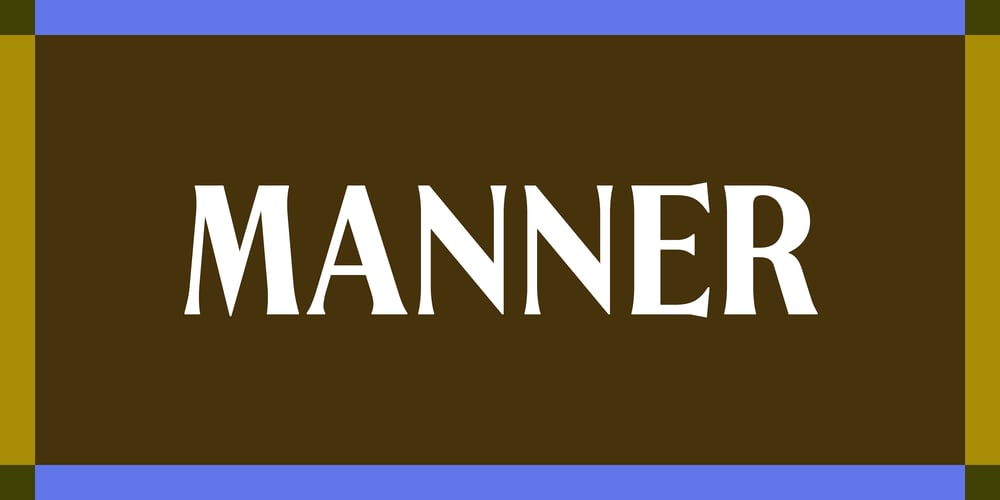
Manner
Manner font
Manner Font Family was designed by Colophon Foundry and published by Colophon Foundry. Manner contains 5 styles and family package options. Although Manner’s roots are firmly within Theodore Low De Vinne’s eponymic type design of the 19th Century, its sensibilities are re-cut and pushed through a contemporary lens. Traversing through the weight range, starting in a more classical old-style in the Light, where details are fine and its Serif’s are long and graceful, the bolder styles (Medium through Black) become decidedly more asymmetric and angular. It is this morphing of stylistic attributes and qualities that brings a unique charm and warmth to Manner’s idiosyncratic forms.Manner has an air of a Sans-Serif about it, skirting the definition of a Sans and Serif simultaneously, with these peculiarities bringing intrigue and a contemporary nature to its design. Gone are the predecessors bulbous and gloopy terminals, in its place are angular, chiseled moments of imperfection and nuance that are perfectly suited for both body and large display-led headline usage.